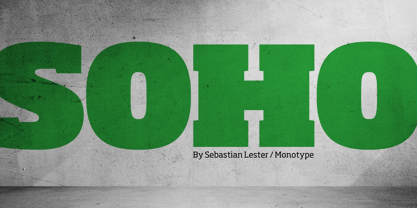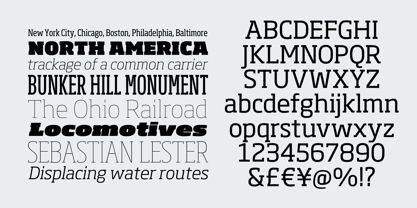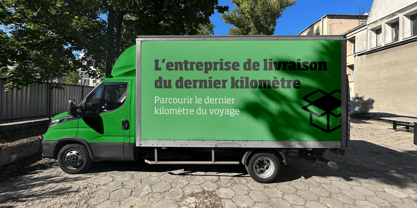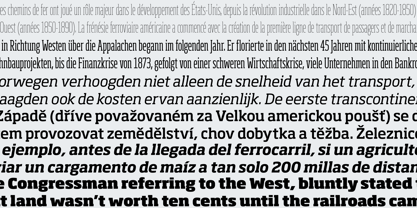
Soho®
About Soho Font Family
Soho is the latest addition to the growing range of typefaces from Sebastian Lester. This grand opus of a project resulted in a typeface that comprises nine weights and five widths of precision engineered OpenType. 40 fonts, 32,668 characters and 24 OpenType features.
Hot on the heels of the popular
Slab serif typefaces are enjoying something of a renaissance, offering versatility whether for corporate identity, product branding, text or display use. With 40 weights to choose from Soho gives designers endless possibilities from the ultra chic lines conveyed by the lighter weights to the rock solid statement made by the heavier weights.
Soho is cross-platform compatible. The Pro version provides extended language support for Central European languages. Used in conjunction with software applications that support OpenType many useful features like "stylistic sets" can be leveraged -- in which a wide variety of alternative characters can be introduced at the click of a mouse button giving one font several "tones of voice" from conservative to cutting edge. The wide range of glyphs includes ligatures and small caps."